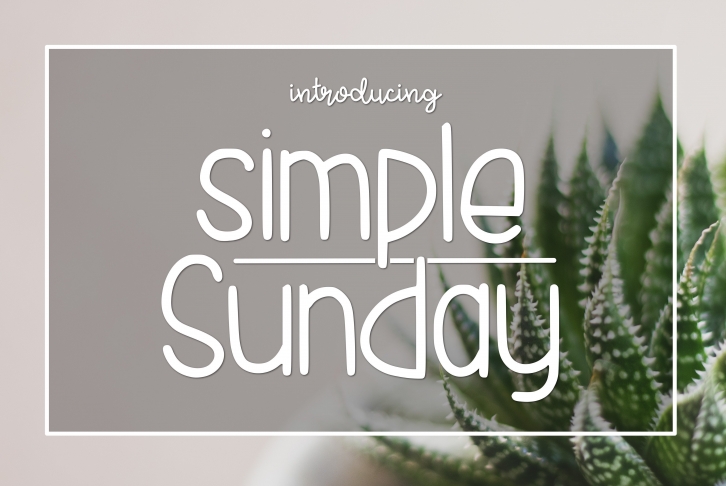
Looking for an easy-to-read font that’s still fun and stylish? Look no further than Simple Sunday! This sweet hand-lettered font is perfect for any project, whether you’re creating a sign, a card, or just adding some personality to your documents. Plus, it’s easy on the eyes, so you can work on those projects longer without getting tired. So grab a cup of coffee and get to work with Simple Sunday!